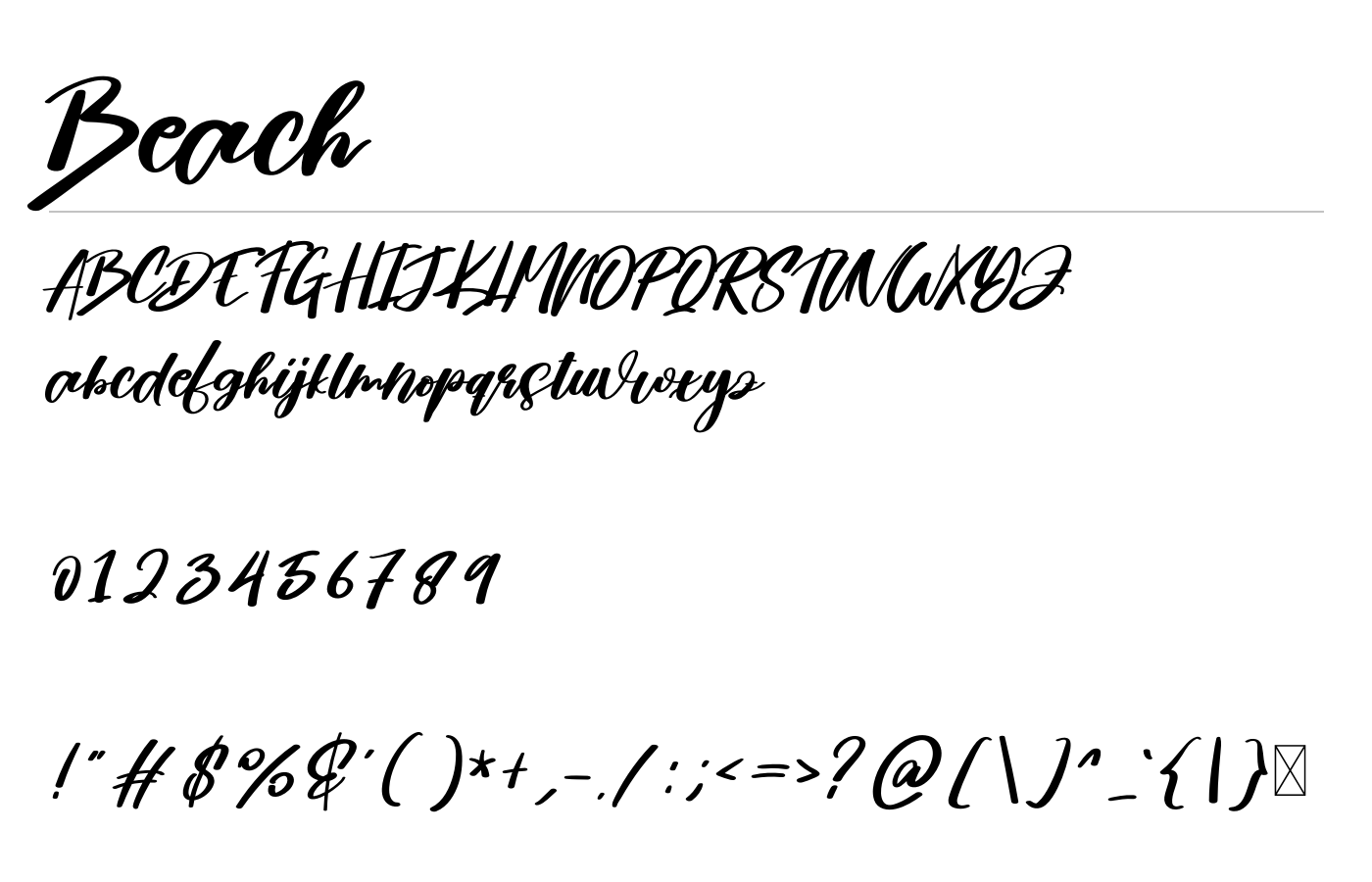
Beach Font is a lively, casual script typeface with smooth, flowing strokes and a hand-brushed feel. Its slightly condensed letterforms and moderate contrast give it a dynamic yet approachable personality, perfect for evoking relaxed, creative, and friendly vibes. This font works best for logos, invitations, packaging, and headlines where a personal, stylish touch is desired.
Beach Font